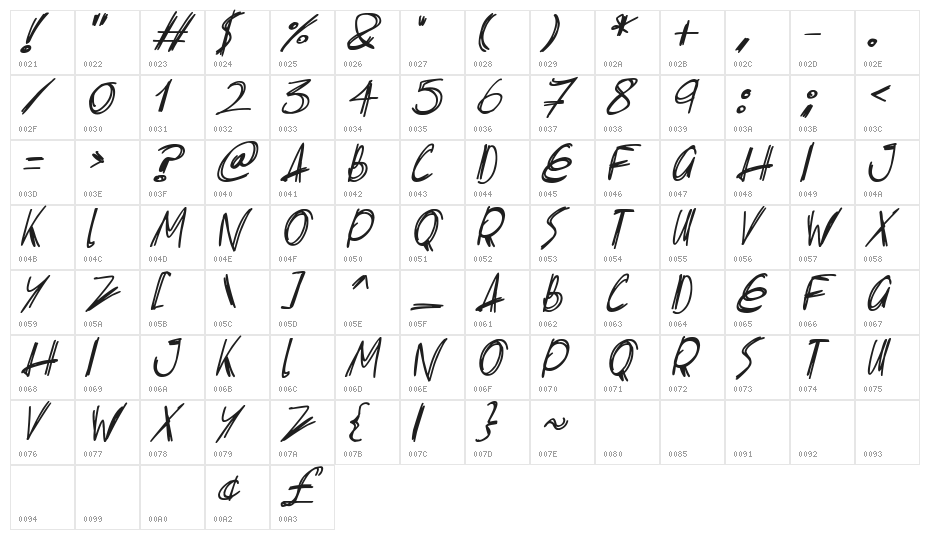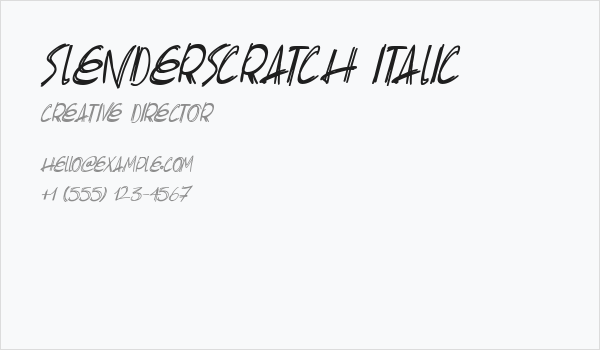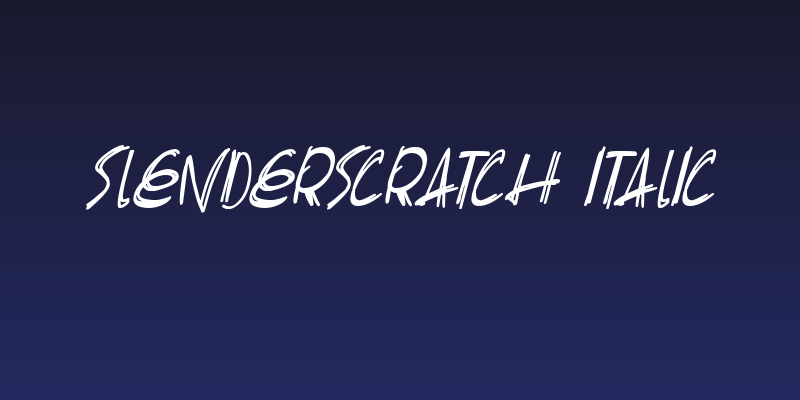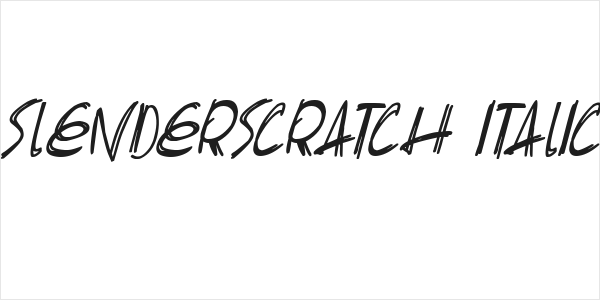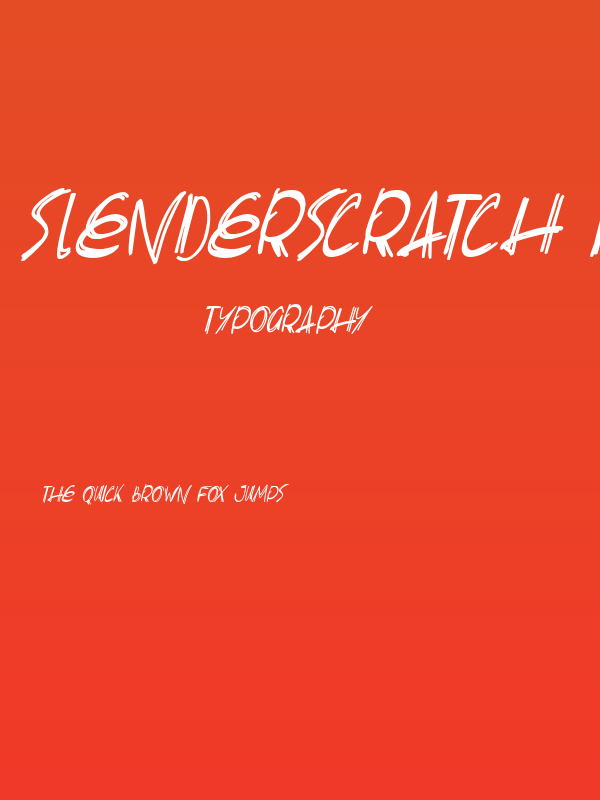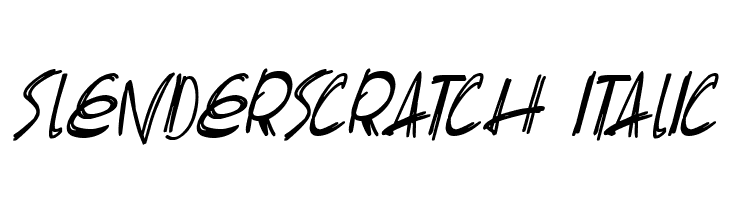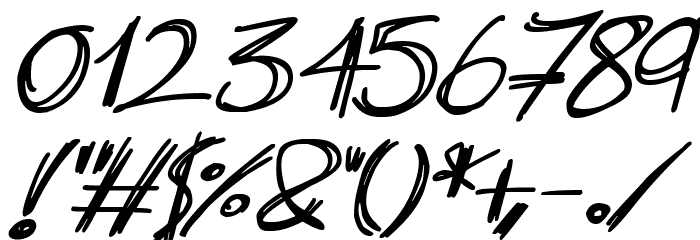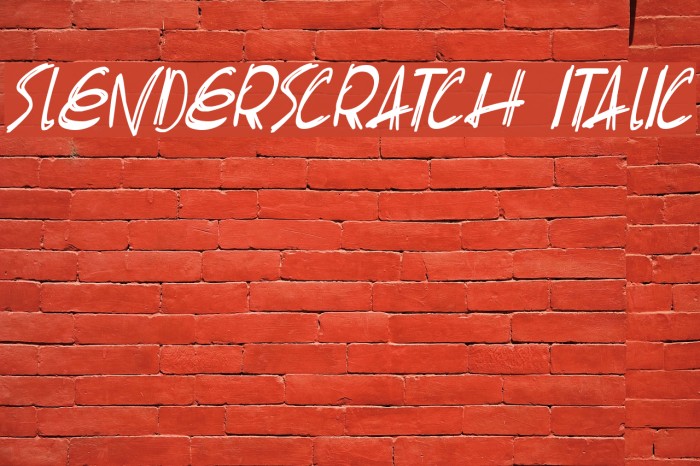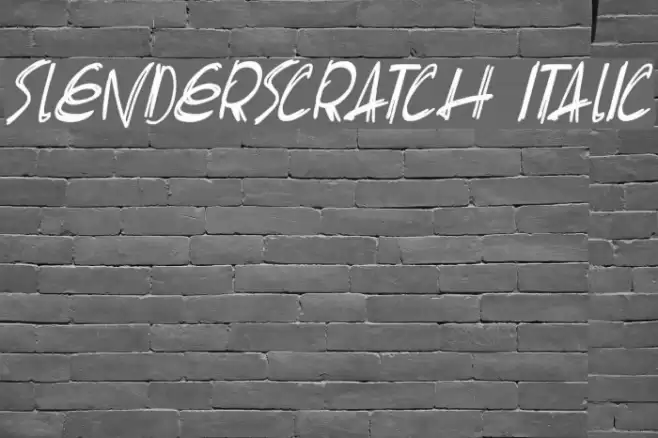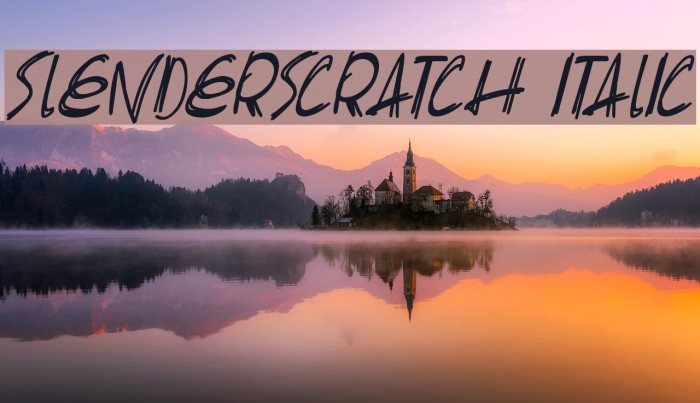
Slenderscratch Italic Font
Slenderscratch Italic Description
This font features a dynamic, handwritten style with an italic slant, giving it an energetic and expressive appearance. The strokes are bold and varied, with a scratchy texture that adds a sense of urgency and movement. The characters are slightly condensed, enhancing the overall compact feel. The uppercase and lowercase letters maintain a consistent flow, while the numerals and special characters integrate seamlessly into the design. This font's unique style makes it stand out, perfect for projects that require a personal touch or a sense of spontaneity.
| Proposed Projects | Ideal for creative projects such as posters, album covers, graffiti art, or any design needing a bold, personal touch. |